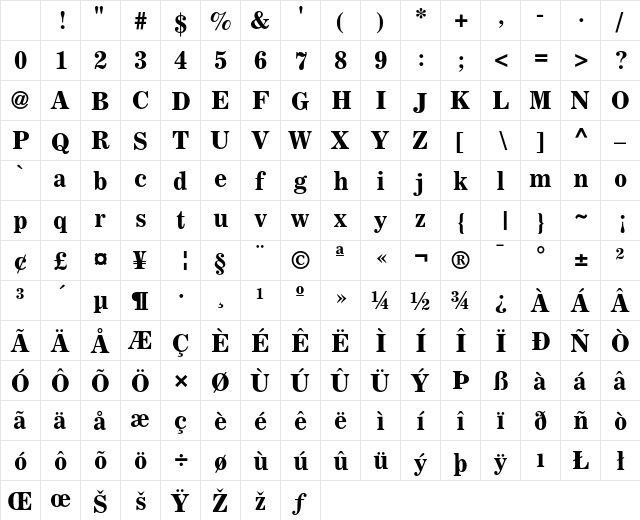
Complete Corona Bold Face No. 2 glyph index. Displaying only characters natively supported by Corona Bold Face No. 2 font.
Corona is a composed and adaptable typeface that performs quietly and consistently across a wide range of design contexts. Its bold stroke weight gives it real presence on the page.